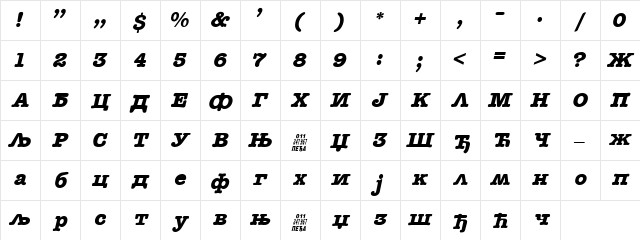
C_Memorandum Bold Italic
Design Context for C_Memorandum
C_Memorandum is a composed and adaptable typeface that performs quietly and consistently across a wide range of design contexts. The slanted form adds forward momentum and visual energy. Its bold stroke weight gives it real presence on the page.
Pro Tip: Use C_Memorandum for emphasis, pull quotes, and subheadings where its slanted energy can add rhythm to the layout.